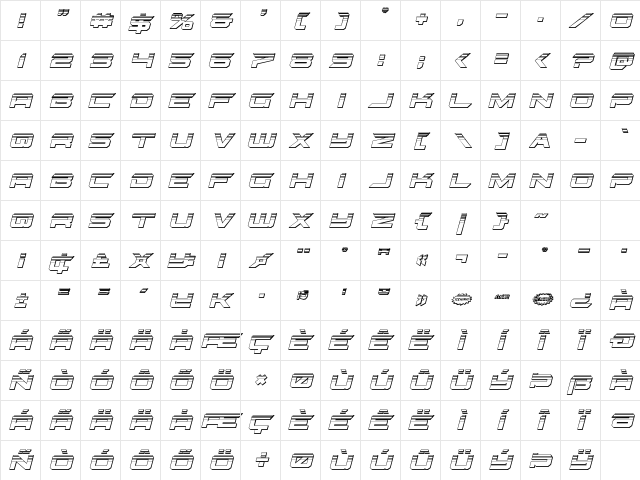
Complete Gypsy Killer Platinum Italic Italic glyph index. Displaying only characters natively supported by Gypsy Killer Platinum Italic Italic font.
Gypsy Killer Platinum Italic is a composed and adaptable typeface that performs quietly and consistently across a wide range of design contexts. The slanted form adds forward momentum and visual energy.
Pro Tip: Use Gypsy Killer Platinum Italic for emphasis, pull quotes, and subheadings where its slanted energy can add rhythm to the layout.